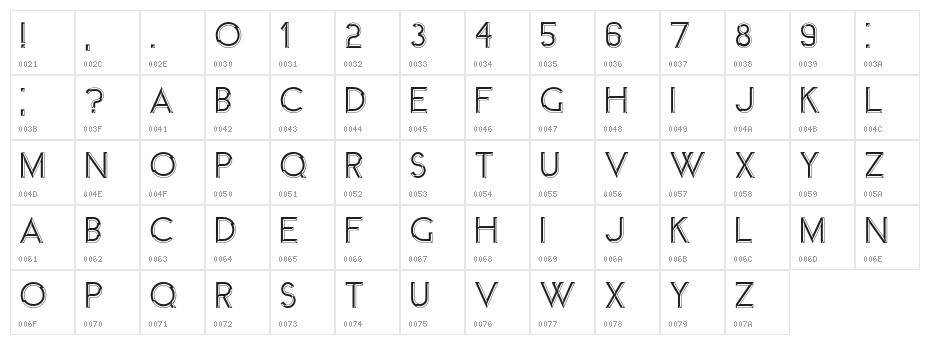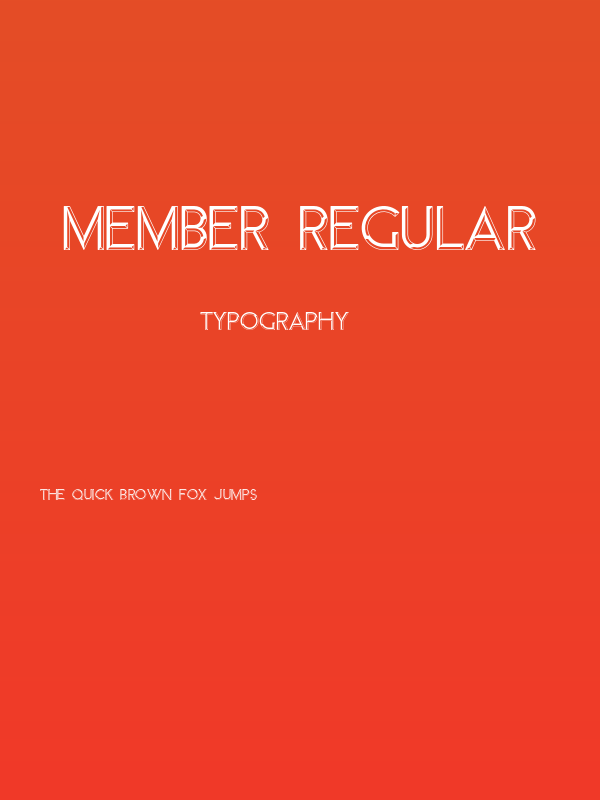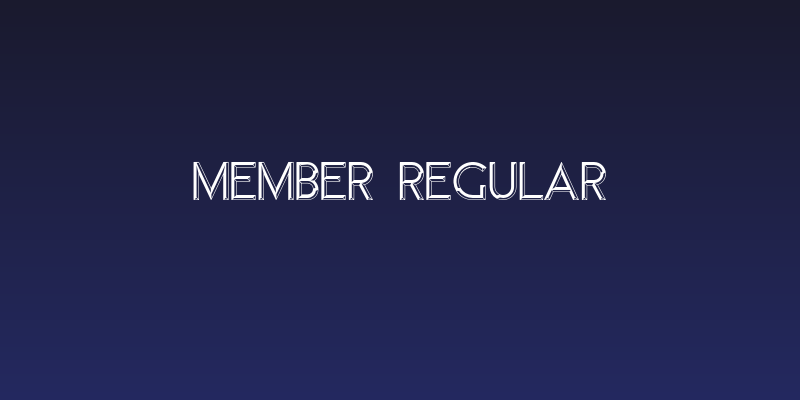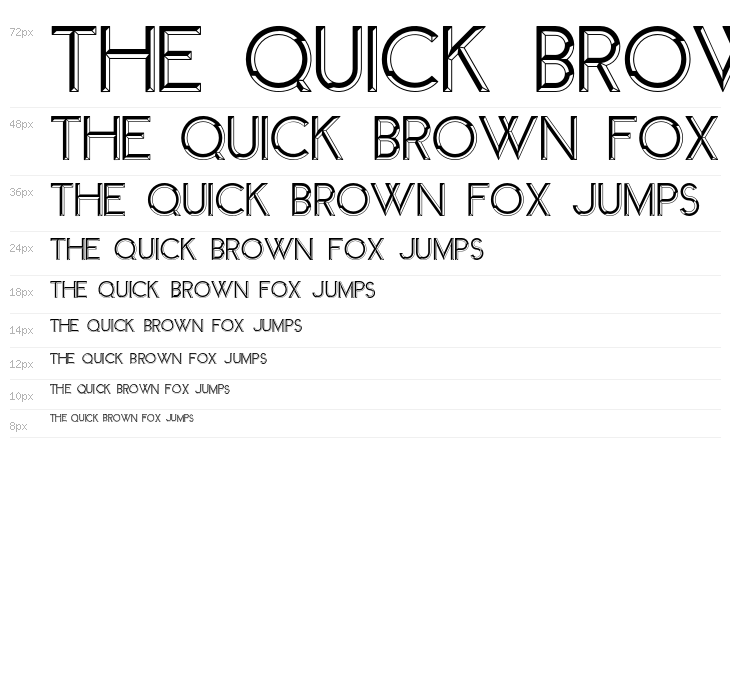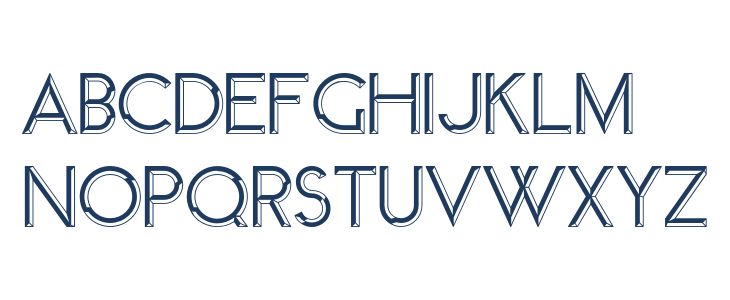
Member Regular Font
Member Regular Description
This font features a modern and geometric design with a distinct double-line style that adds depth and dimension to each character. The uppercase letters are bold and structured, while the lowercase letters maintain a consistent style, offering a cohesive look across different text sizes. The numbers are equally well-crafted, ensuring readability and aesthetic appeal. The special characters are designed to complement the overall style, making this font versatile for various applications. Its unique design makes it suitable for projects that require a contemporary and stylish appearance.
Proposed ProjectsIdeal for branding, posters, headlines, and any design project that requires a modern and stylish font.